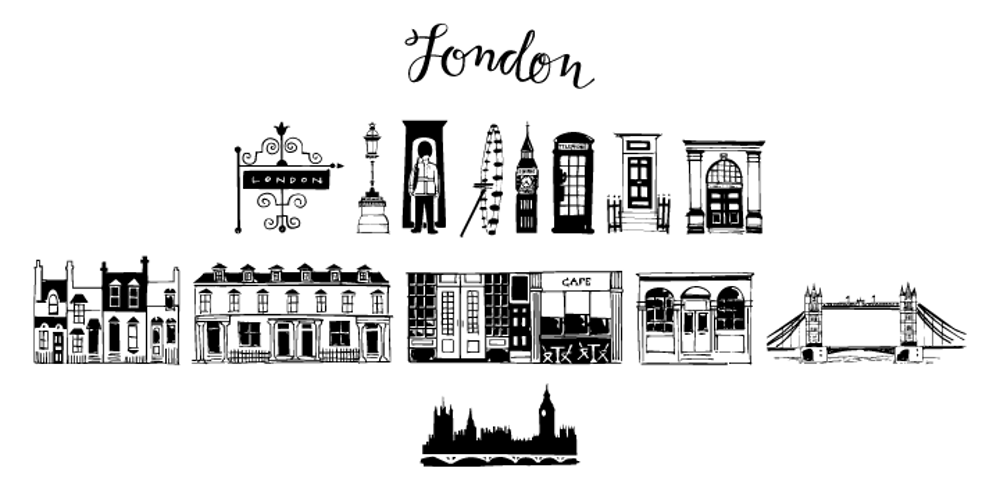
London Doodles
London Doodles font
London Doodles Font Family was designed by Rae Kaiser and published by Outside the Line. London Doodles contains 1 styles and family package options. London is always hip. With William and Kate and the 2012 Summer Olympics it made sense that London Doodles would be second in the City Series following Paris Doodles. 29 illustrations and a script word London. Kate’s ring, the Queen’s carriage, crown, skyline, cityscapes, cars, double-decker bus, castles, bridge, tea items, flag and more.